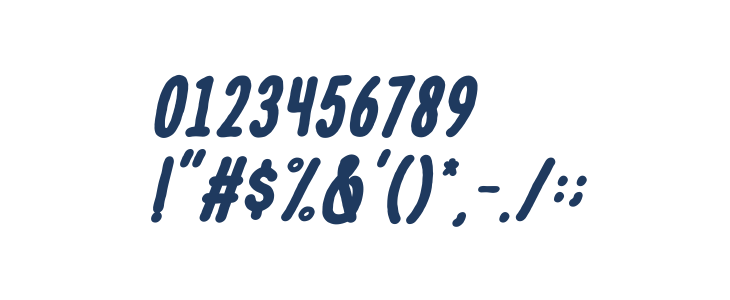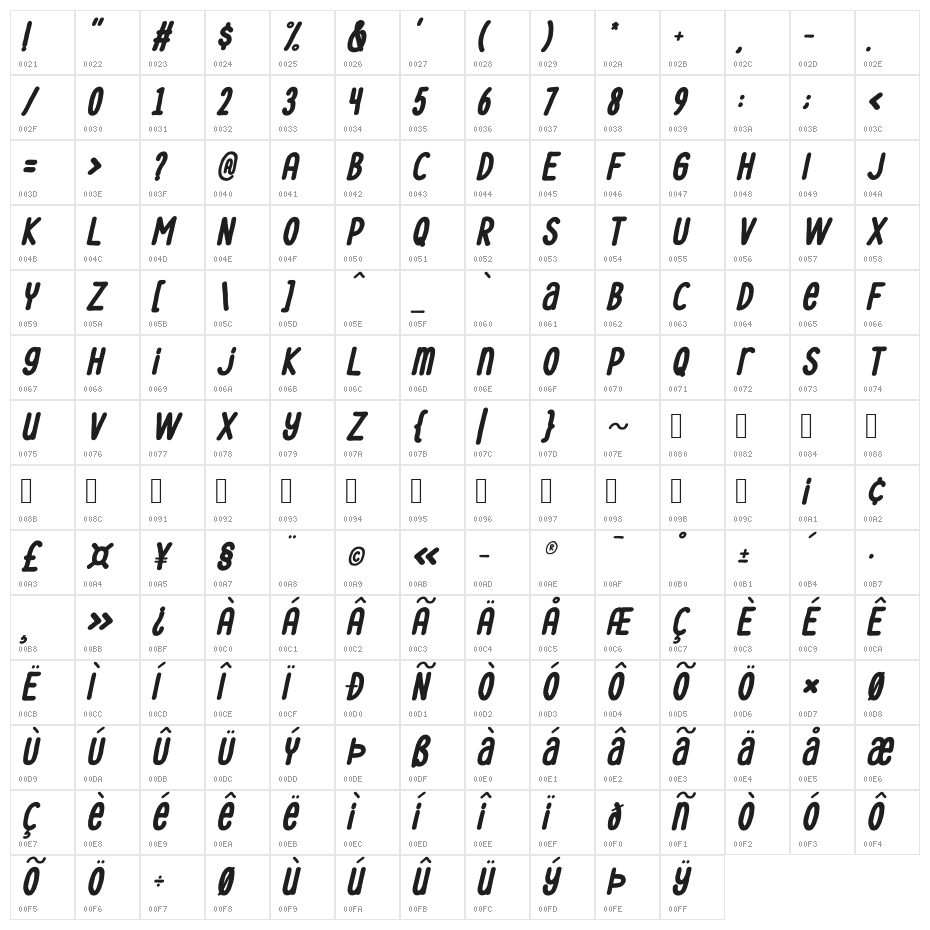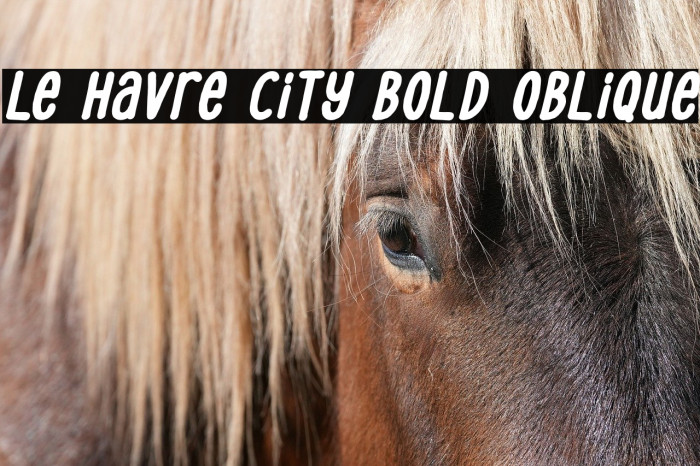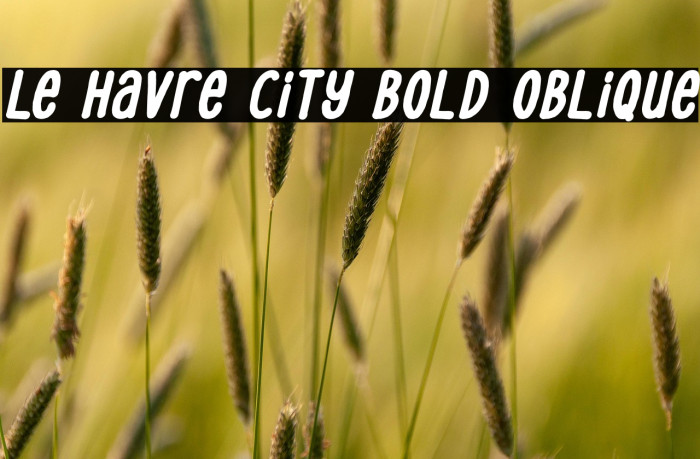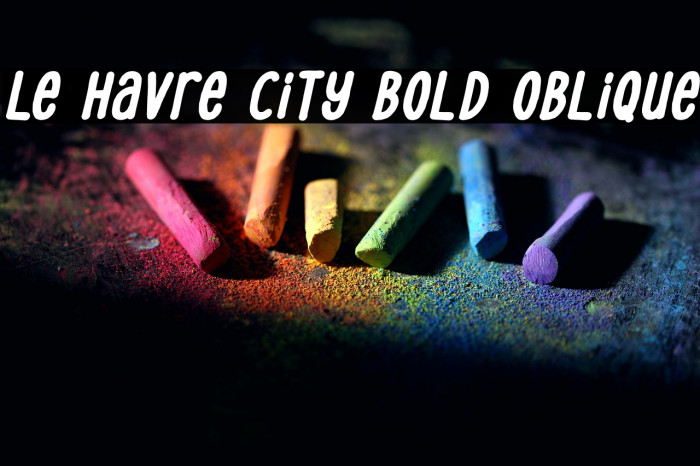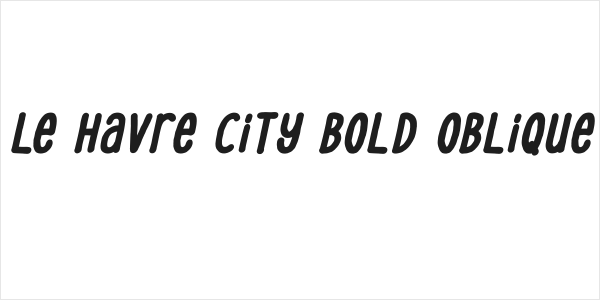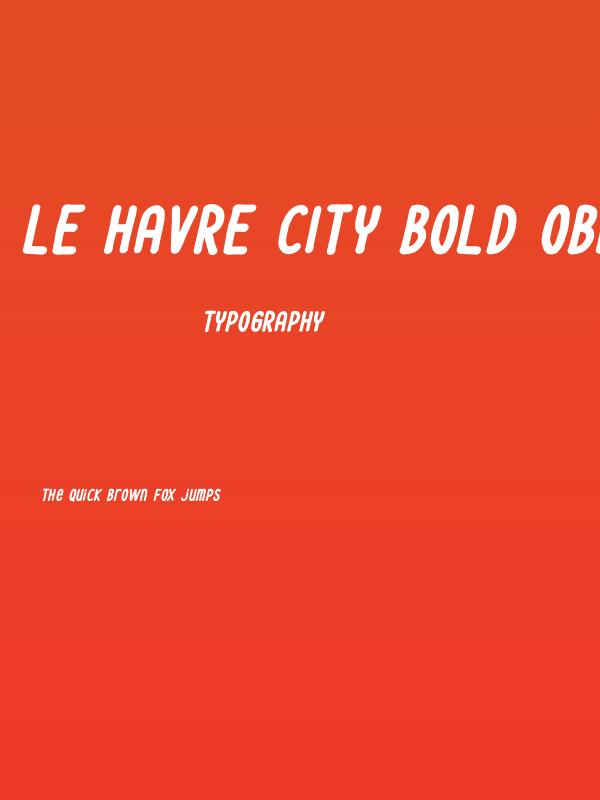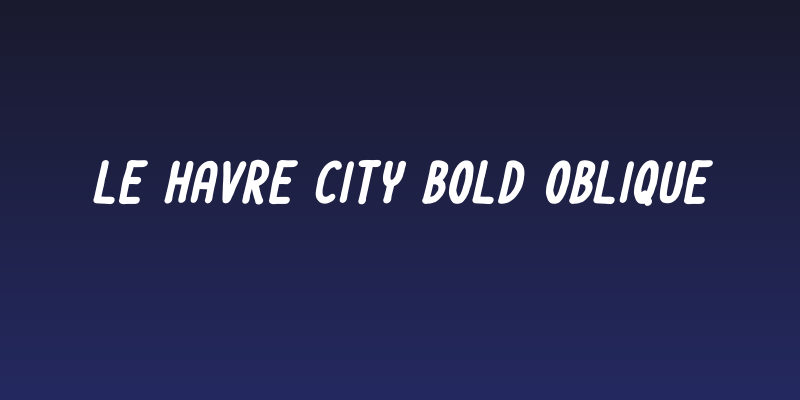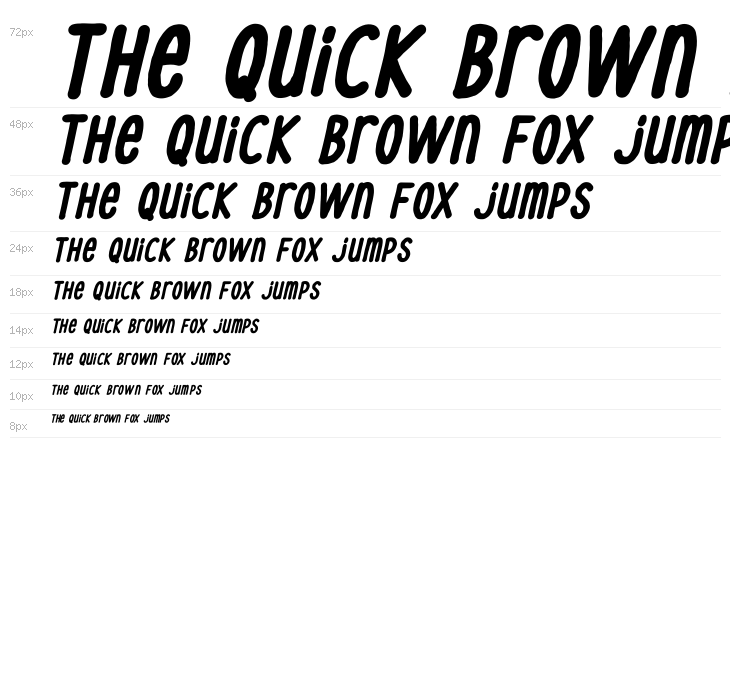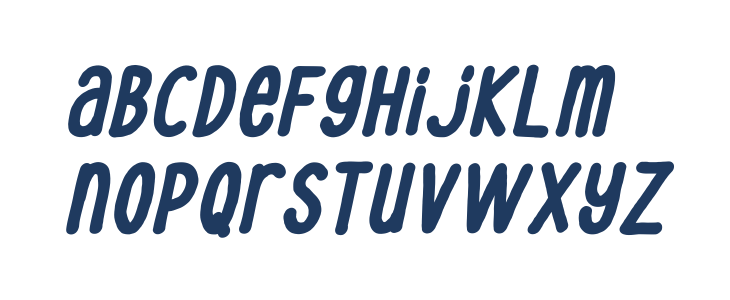
Le Havre City Bold Oblique Font
Le Havre City Bold Oblique Description
This font features a bold and oblique style with a playful and dynamic appearance. The characters are rounded and slightly slanted, giving a sense of movement and energy. The strokes are thick and consistent, providing a strong visual impact. The uppercase and lowercase letters maintain a uniform style, with the lowercase letters slightly smaller in size. Numbers and special characters are designed to match the overall aesthetic, ensuring a cohesive look. The font's boldness and oblique angle make it suitable for attention-grabbing designs.